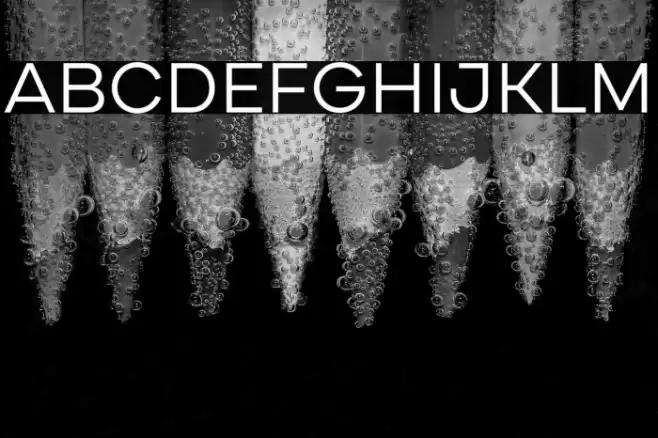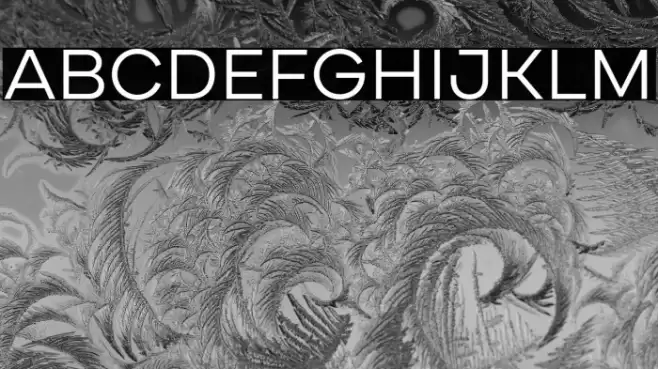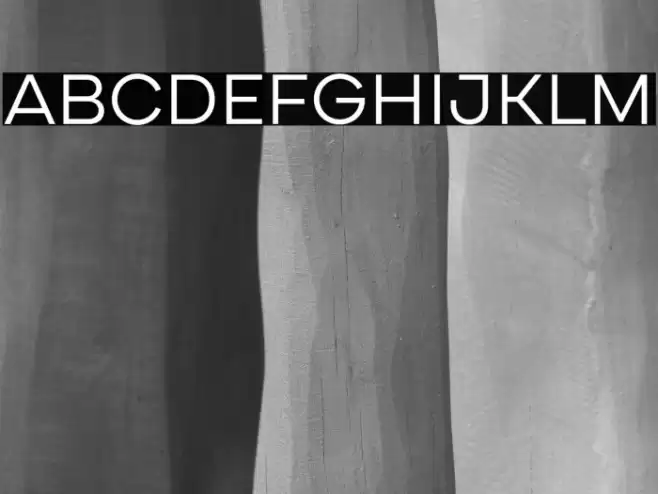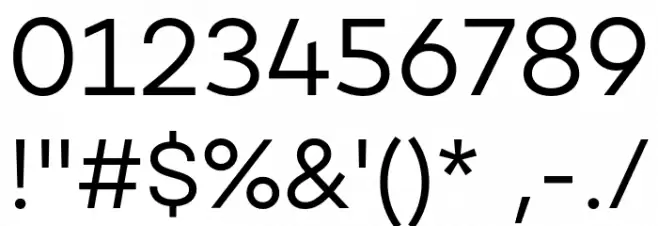
CardiumA-Regular Font
CardiumA-Regular Description
This font features a clean and modern sans-serif design, characterized by its geometric shapes and uniform stroke widths. The uppercase letters are bold and assertive, while the lowercase letters maintain a consistent and harmonious appearance. The numerals are clear and easily distinguishable, making them suitable for various applications. Special characters are well-defined, enhancing the font's versatility. Its simplicity and clarity make it ideal for digital and print media, ensuring readability across different sizes and contexts.
A modern, geometric sans-serif font with clean lines and uniform strokes from Uncategorized fonts.
- Font: CardiumA-Regular
- Proposed Projects: Ideal for branding, web design, advertising, and editorial layouts due to its clarity and modern appeal.